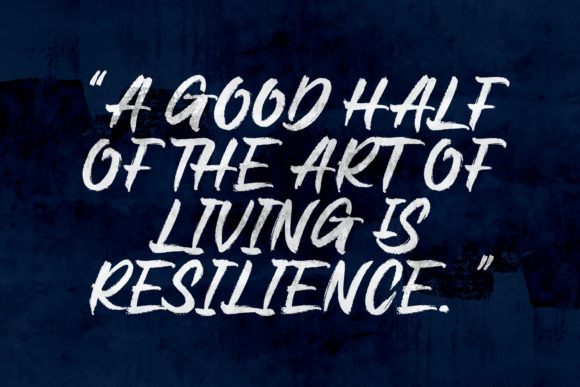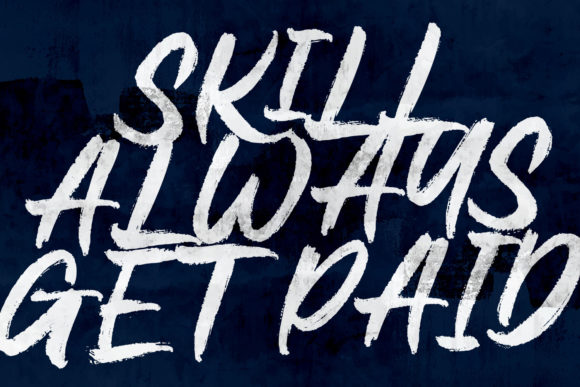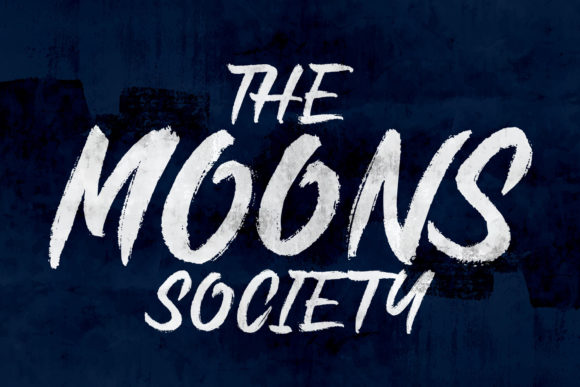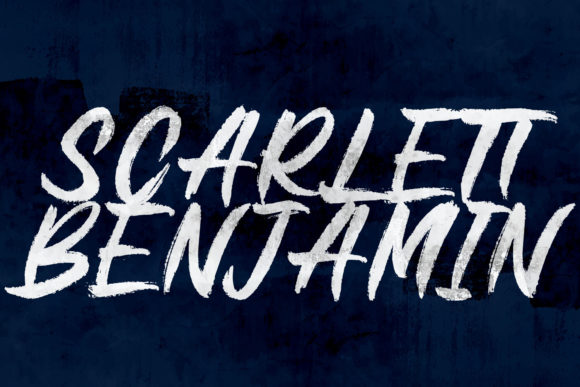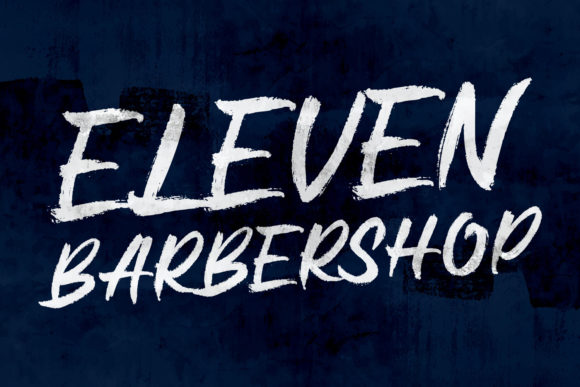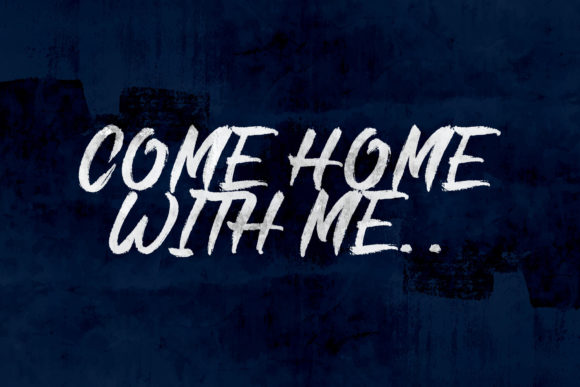
Introduction to Grind Slide Font
Grind Slide is an expressive handwritten font perfect for logo design, social media posts, movie titles, books titles, and many more.
Add it to any of your creative designs, and it will make them stunning and outstanding .
Key Features of Grind Slide Font
Why Choose Grind Slide Font?
Grind Slide Font offers exceptional quality and versatility, making it a valuable addition to your design toolkit. Whether you’re creating for personal projects or commercial use, Grind Slide Font delivers professional results.